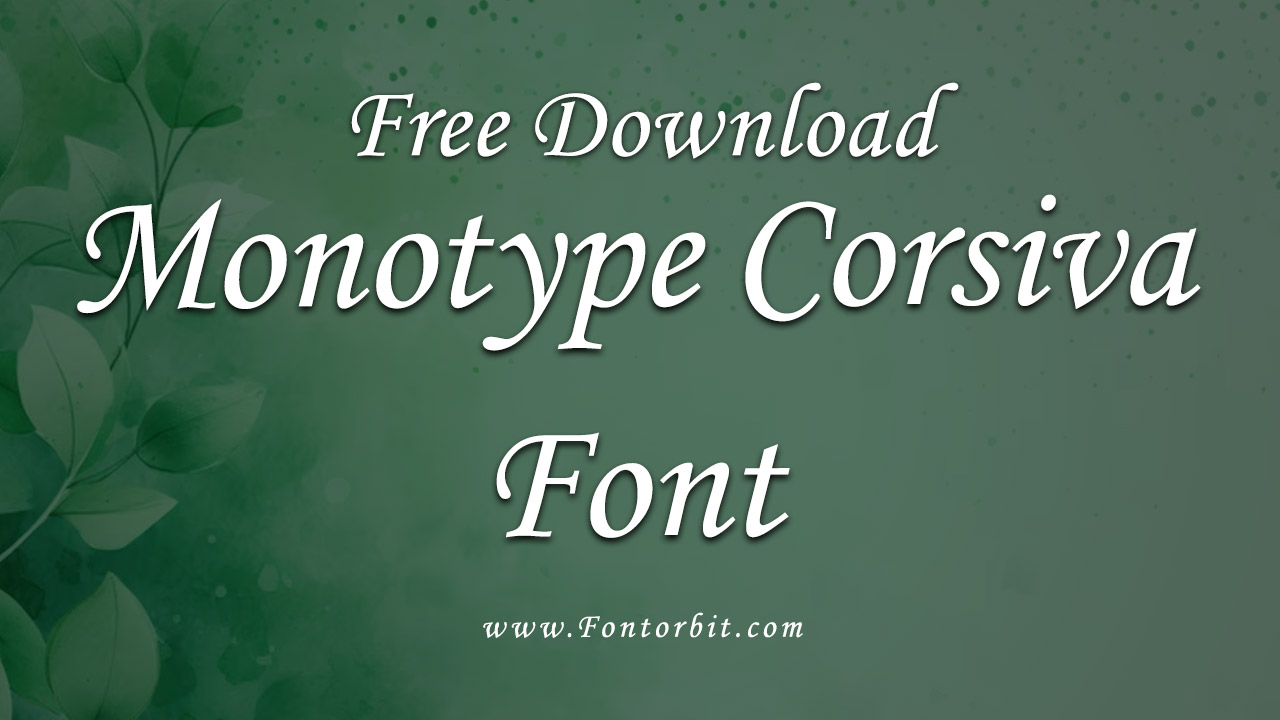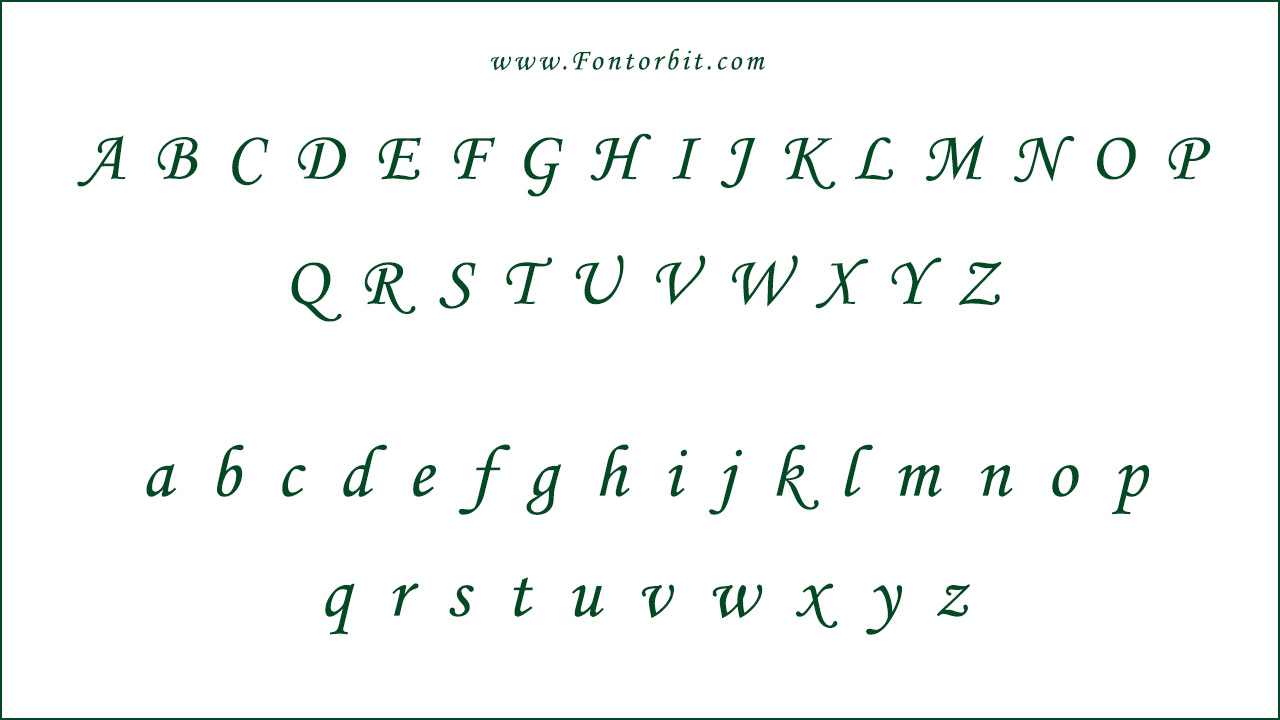
Monotype Corsiva font is a distinctive and elegant script typeface crafted by the talented designer Patricia Saunders and published by Monotype Imaging. First introduced in 1995, this typeface is an integral part of the Corsiva font family.
Monotype Corsiva’s graceful and flowing characters evoke a sense of sophistication and refinement. Its fluid, cursive style makes it particularly well-suited for formal and decorative uses, adding a touch of elegance to a variety of typographic designs.
Notable Uses Of Monotype Corsiva
Designers commonly use Monotype Corsiva’s stylish and sophisticated appearance for formal invitations, greeting cards, and decorative text. It adds a touch of elegance to any design, making it ideal for special occasions such as weddings and high-end event invitations.
This font is perfect for:
- Wedding invitations and formal announcements
- Greeting cards and personal stationery
- Elegant and artistic design projects
Monotype Corsiva stands out for its unique and refined appearance, making it a popular choice for formal and decorative uses. Its elegant design and versatility ensure it remains a favourite for a range of typographic needs.
1.What Type Of Font Is Monotype Corsiva?
Monotype Corsiva is a script typeface known for its elegant and flowing characters.
2.Who Designed Monotype Corsiva?
Patricia Dufresne designed the font.
3.When Was Monotype Corsiva Released?
It was released in 1995.
4.What Are The Main Uses For Monotype Corsiva?
It is commonly used for invitations, greeting cards, and decorative text.
9.What Is The Best Use Case For Monotype Corsiva?
It’s best used in formal and artistic design contexts.
10.Is Monotype Corsiva Easy To Read?
While stylish, its cursive nature can make it less readable in long texts.